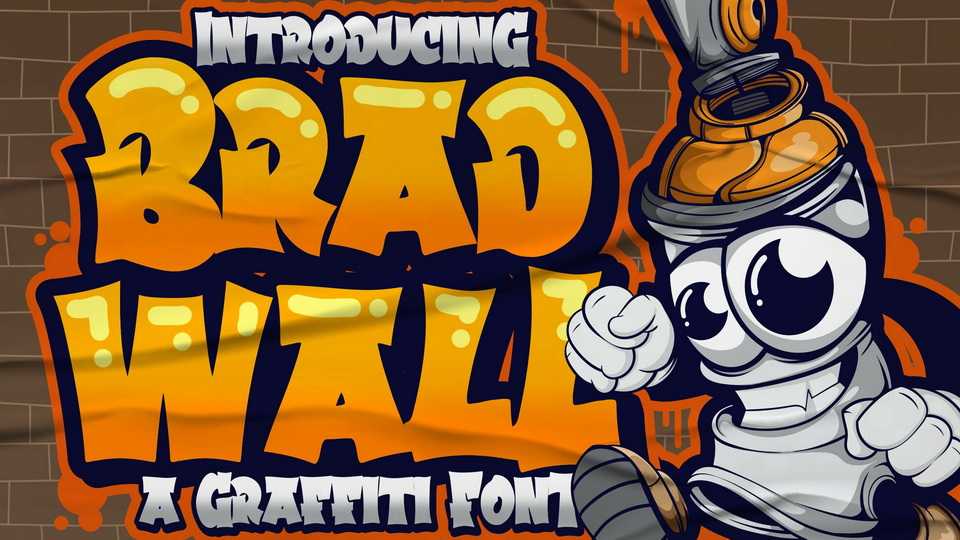
Download Bradwall font, a display typeface inspired by graffiti style with a fun theme. Bradwall is very good for graffiti poster, hip hop music, kids poster, flyer, children book, cartoon, comic, etc.